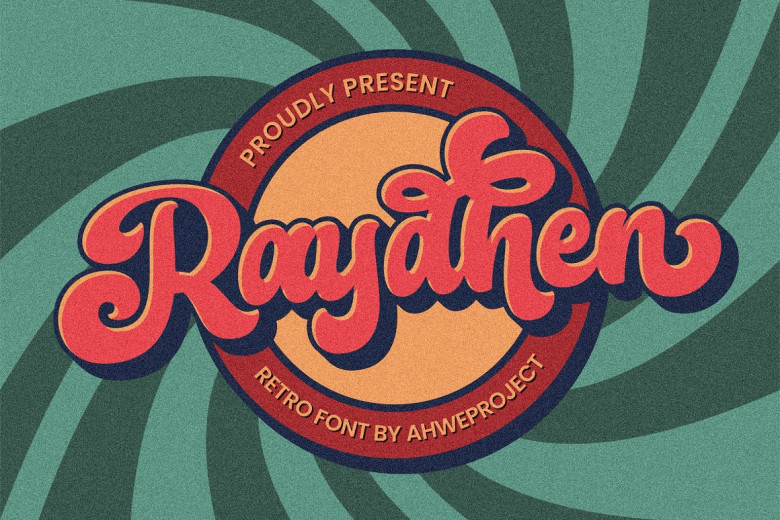
Raydhen Font
Raydhen offers a retro-style script font display that will elevate any design project to new levels of success. Perfect for vintage posters, apparel, stickers and social media posts alike!
Raydhen Retro Font